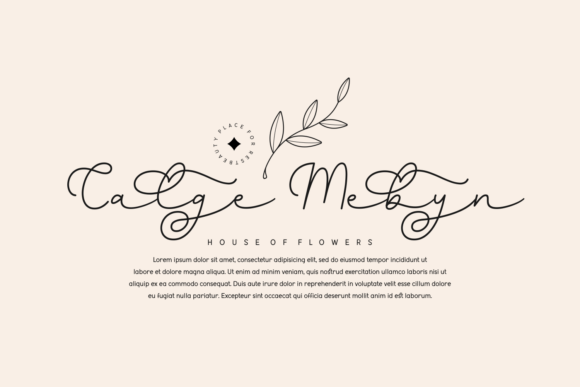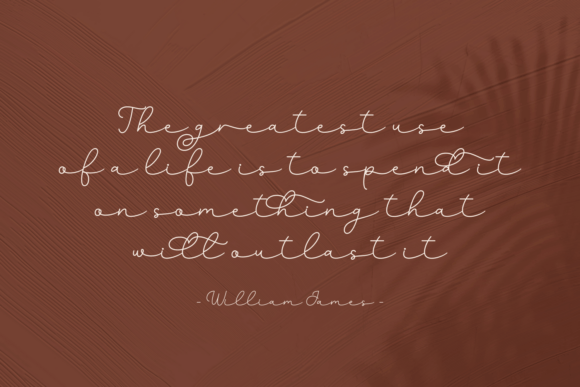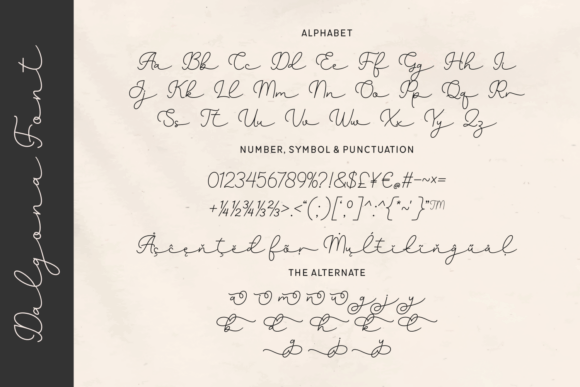
Dalgona Font: Elevate Your Designs with Elegance and Simplicity
In the world of typography, fonts play a crucial role in conveying the tone and personality of a brand or design. For designers and crafters seeking a font that embodies both simplicity and elegance, Dalgona Font is an exceptional choice. This beautiful monoline script font has been gaining popularity for its unique swashes, delicate loops, and sophisticated charm. In this article, we’ll explore the features, uses, and benefits of Dalgona Font, and how it can elevate your designs to the next level.
What is Dalgona Font?
Dalgona Font is a graceful monoline script font that boasts a perfect blend of simplicity and elegance. Its delicate loops and unique swashes give it a distinctive charm that sets it apart from other fonts. The font’s monoline design ensures that it remains clean and uncluttered, making it ideal for a wide range of applications, from branding and wedding invitations to logos and social media graphics.
Key Features of Dalgona Font
So, what makes Dalgona Font so special? Here are some of its key features:
- Monoline Design: Dalgona Font features a sleek and modern monoline design that gives it a clean and sophisticated look.
- Delicate Loops: The font’s delicate loops add a touch of elegance and whimsy to your designs.
- Unique Swashes: Dalgona Font’s unique swashes provide a beautiful way to add personality and flair to your text.
- Simple yet Elegant: The font’s simplicity and elegance make it perfect for a wide range of applications, from formal to informal designs.
Uses of Dalgona Font
Dalgona Font is an incredibly versatile font that can be used in various design projects, including:
- Branding: Use Dalgona Font to create a sophisticated and memorable brand identity.
- Wedding Invitations: Add a touch of elegance and romance to your wedding invitations with Dalgona Font.
- Logos: Create a unique and stylish logo for your business or brand with Dalgona Font.
- Social Media Graphics: Use Dalgona Font to create eye-catching social media graphics that stand out from the crowd.
- Crafting and DIY Projects: Dalgona Font is perfect for crafters and DIY enthusiasts who want to add a personal touch to their projects.
Benefits of Using Dalgona Font
So, why choose Dalgona Font for your design projects? Here are some benefits of using this beautiful font:
- Elegance and Sophistication: Dalgona Font adds a touch of elegance and sophistication to your designs.
- Versatility: The font’s versatility makes it suitable for a wide range of applications and design projects.
- Easy to Read: Dalgona Font is easy to read, making it perfect for body text and headlines.
- Unique and Creative: The font’s unique swashes and delicate loops provide a creative way to express yourself through your designs.
Tips for Using Dalgona Font
To get the most out of Dalgona Font, here are some tips to keep in mind:
- Pair it with Other Fonts: Experiment with pairing Dalgona Font with other fonts to create a unique and visually appealing design.
- Use it for Headlines and Titles: Use Dalgona Font for headlines and titles to add a touch of elegance and sophistication.
In conclusion, Dalgona Font is a beautiful and versatile monoline script font that can elevate your designs to the next level. Its delicate loops, unique swashes, and sophisticated charm make it perfect for a wide range of applications, from branding and wedding invitations to logos and social media graphics. With its ease of use and flexibility, Dalgona Font is an excellent choice for designers and crafters looking to add a touch of elegance and simplicity to their designs.